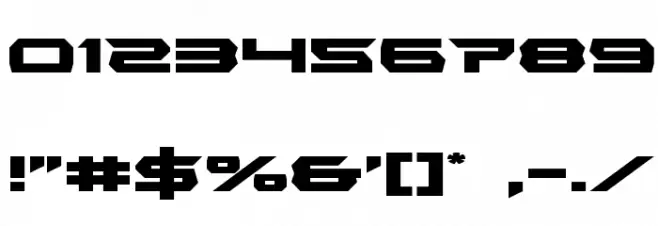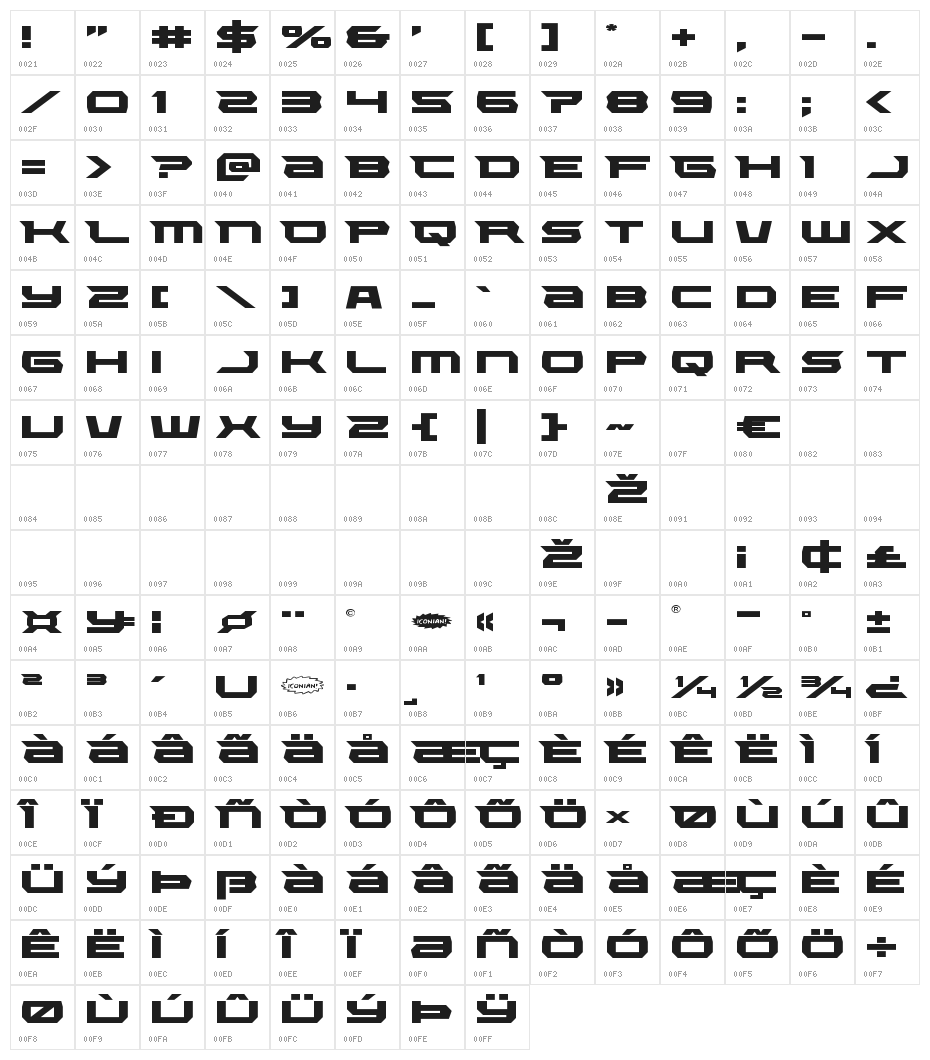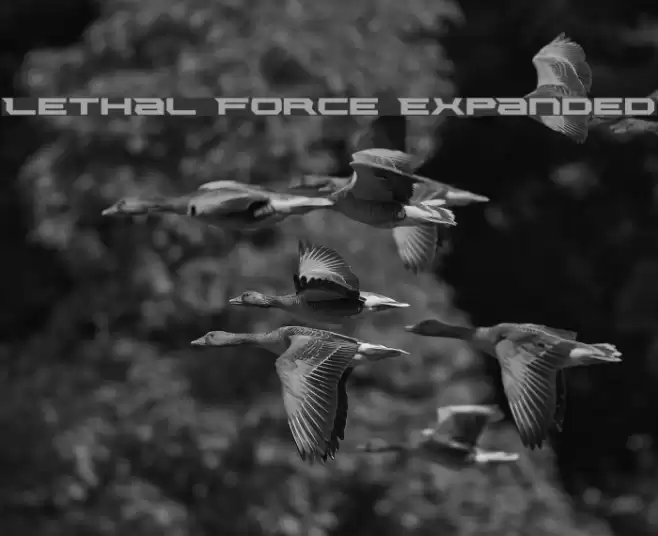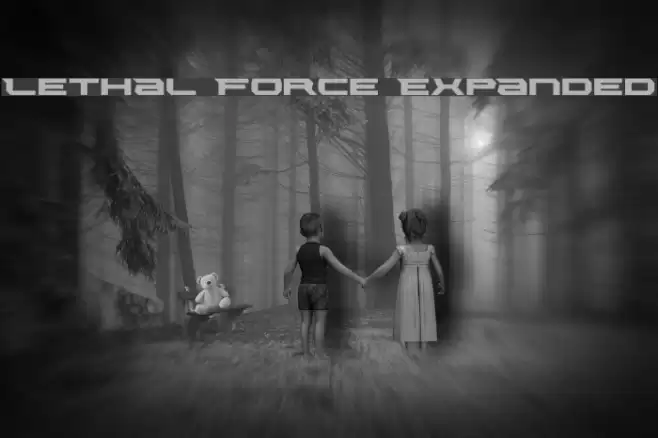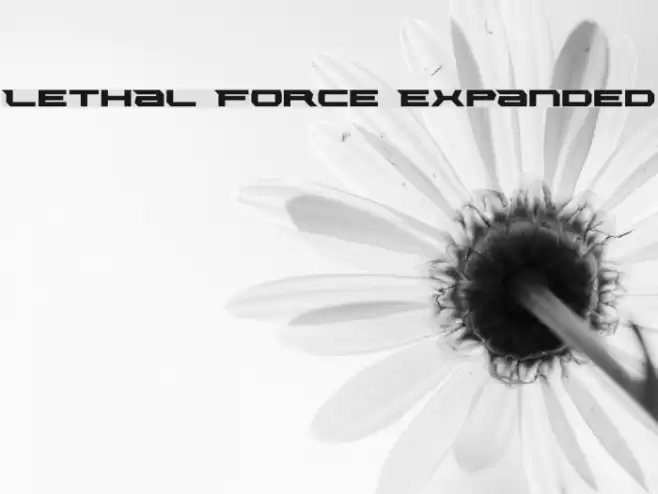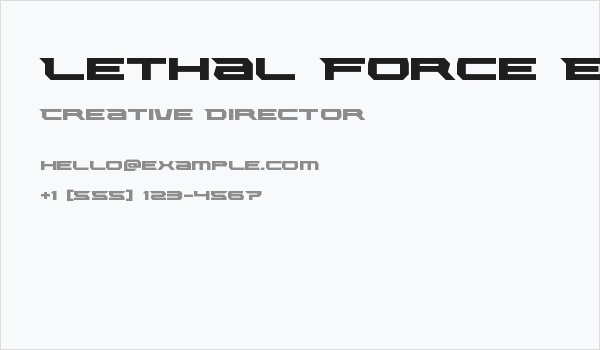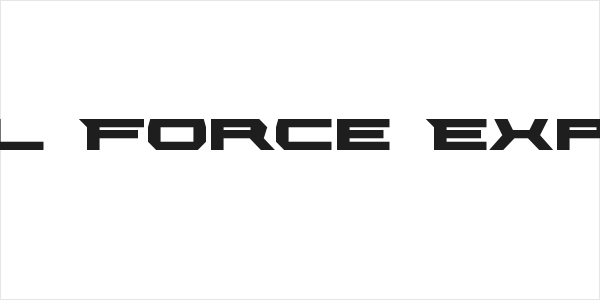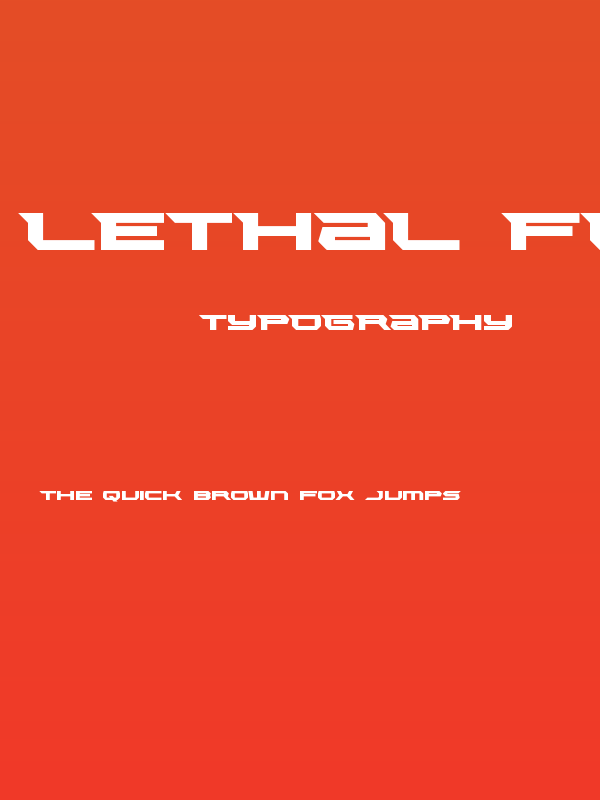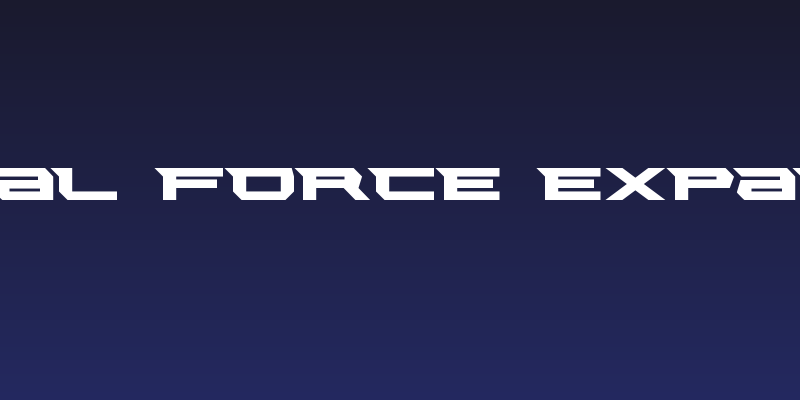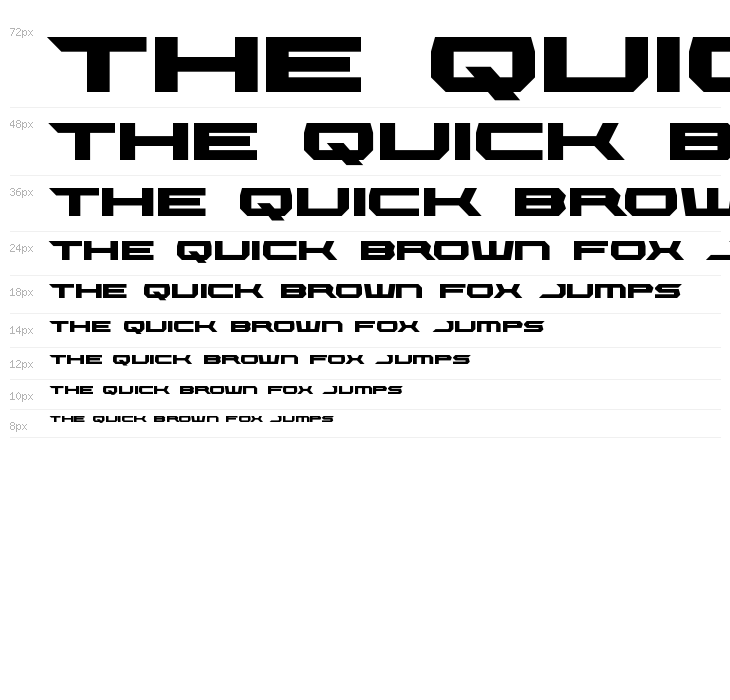
Lethal Force Expanded Font
Lethal Force Expanded Description
This font features a bold, futuristic design with sharp, angular edges and a distinctly geometric style. The characters are wide and imposing, giving a sense of strength and modernity. The uppercase and lowercase letters maintain a consistent style, with the lowercase being slightly smaller but equally bold. Numbers and special characters follow the same design principles, ensuring uniformity across all glyphs. The font's expanded width and tight character spacing contribute to its impactful appearance, making it ideal for attention-grabbing headlines and logos.
| Proposed Projects | Ideal for sci-fi themed projects, video game titles, technology branding, and futuristic posters. |